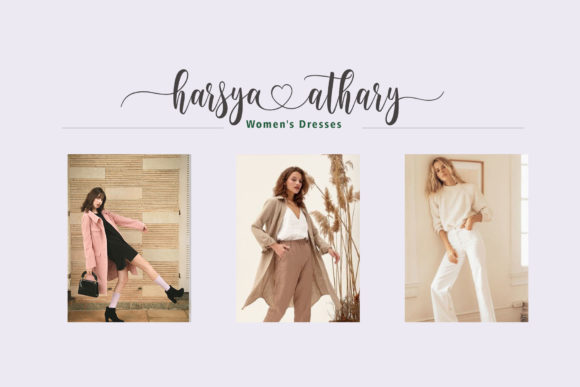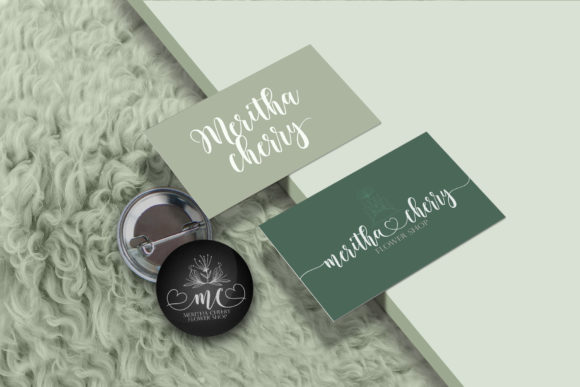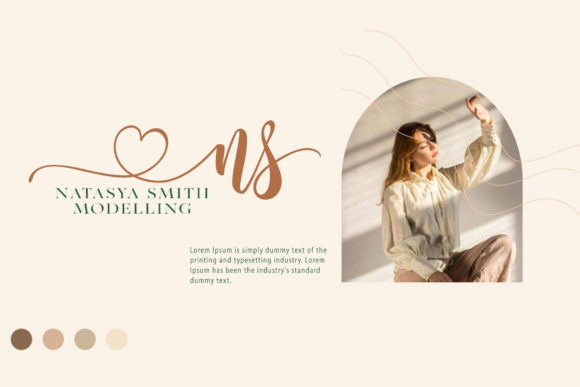
Basyirah Font: Elegant Script for Wedding Invitations & Logo Design
About the Basyirah Font
From logos to headlines, the Basyirah Font is the perfect choice for making a lasting impression. Basyirah is a chic and joyful handwritten font. It looks lovely on wedding invitations, thank you cards, quotes, greeting cards, logos, business cards and every other design which needs a handwritten touch. It features a varying baseline, smooth lines, gorgeous glyphs and stunning alternates.
Basyirah Font Usage Examples
Basyirah Font Example